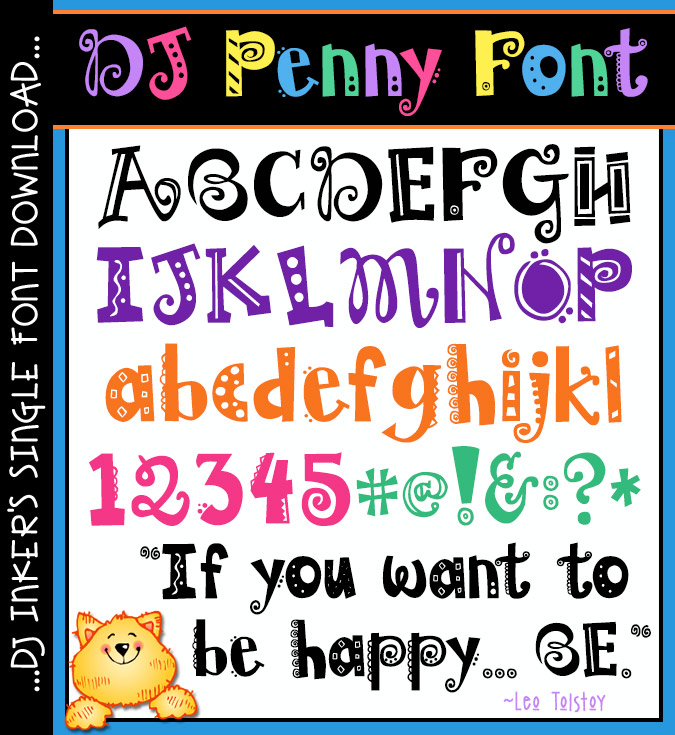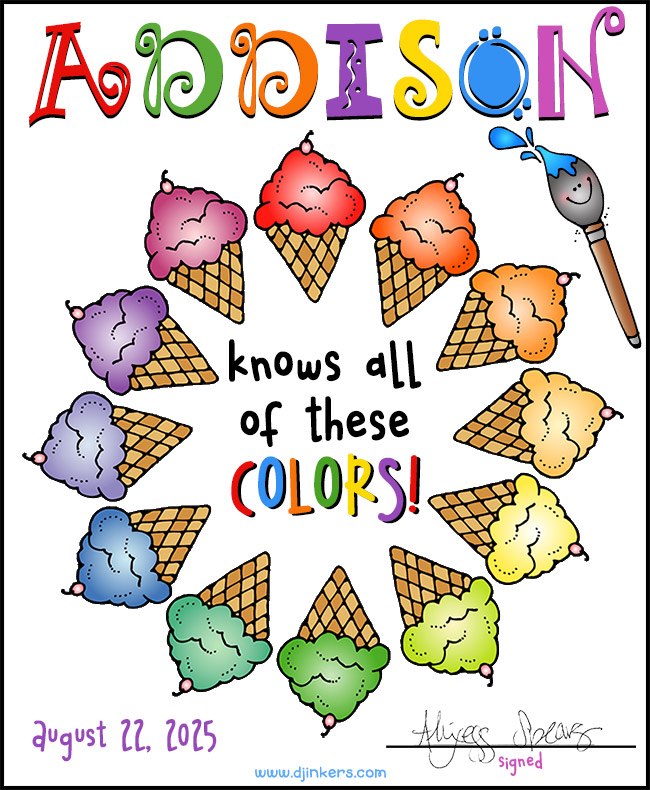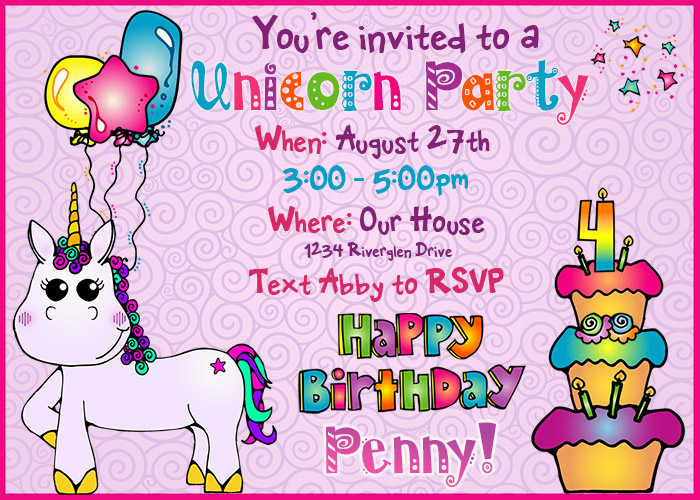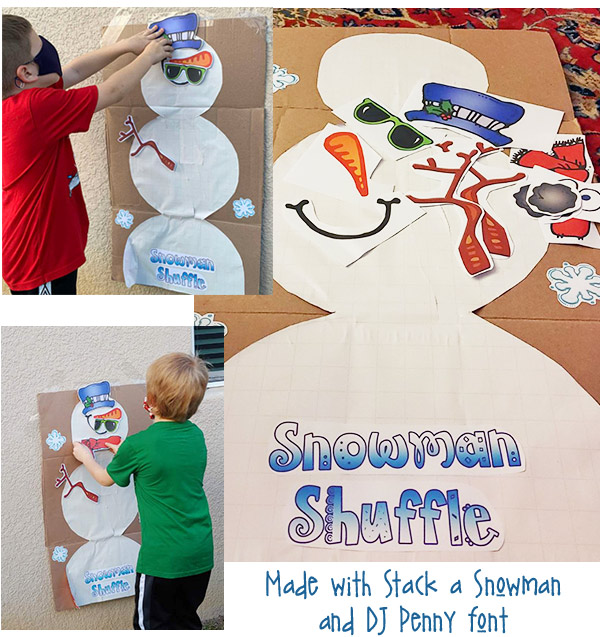
If you want your lettering to be full of sass & smiles, you'll love our DJ Pennyfont! Every character is different in this crazy, playful lettering... so it's perfect for friends, headlines, parties, crafting and creating something truly unique. Looks best in larger sizes & bright, bold colors. Happy typing!
This font is cousin to the 'open' outline version: DJ Addie. These fonts are named for 2 cute cousins in the DJ family. We hope you love them both as much as we do! ;)